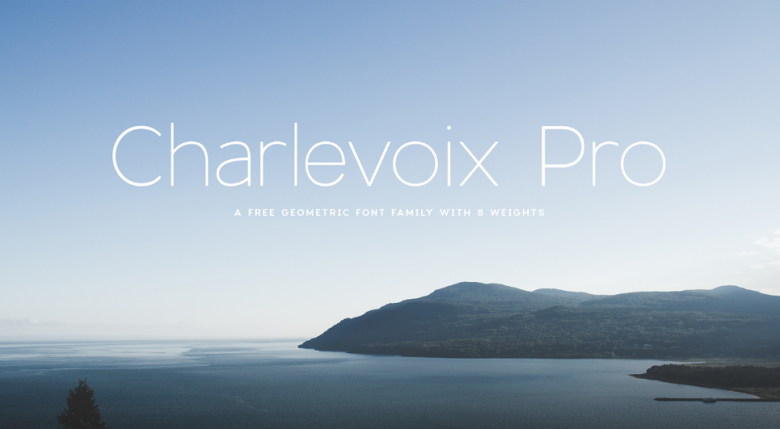
Charlevoix Pro Font Family
Continue to be a font family, you will love it. Introducing Charlevoix Pro Font Family! Charlevoix Pro designed by Mathieu Desjardins. A professional designer comes from Montreal, Quebec, Canada. Charlevoix Pro is a beautiful display typeface inspired by one of Quebec’s greatest region. It is strong and bold like Charlevoix’s hills and mountains and fluid like the water of the Saint-Laurent river. It boasts 325 meticulously crafted glyphs per weight.